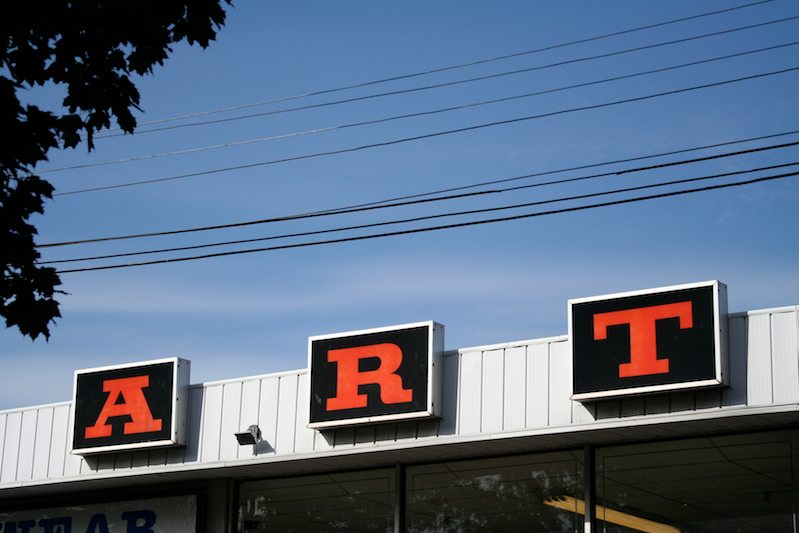
Art
There’s something grand about a sign that isn’t content to be framed by one rectangular box, but spaces itself out letter by letter. These gigantic slabs affixed to the side of a building have the tactile allure of Scrabble tiles.
I have a confession to make: I only photographed the last three letters of the sign. I just couldn’t help myself! So here’s a challenge for all you sign geeks and type freaks: What’s the full name of the store and in what Toronto neighbourhood will you find it? C’mon, impress me!
Hmmmm….I’m pretty sure it’s in the Kensington market area….across from the park….
That’s correct! Very good! Now what’s the store name?
OK…i cheated and used google streetview – It’s SASMART, a Portugese mini-dept. store. I’ve always liked how it reflects one round of newcomers to the market while Grossman’s similarly strange mini department store on Augusta marks another.
That’s funny! I guess if I have quizzes on this site, everyone will be hitting Street View!
David, you’re right, signs are interesting markers of history. I particularly like signs that remain behind when the businesses are long gone. Eventually I’ll post some of those.